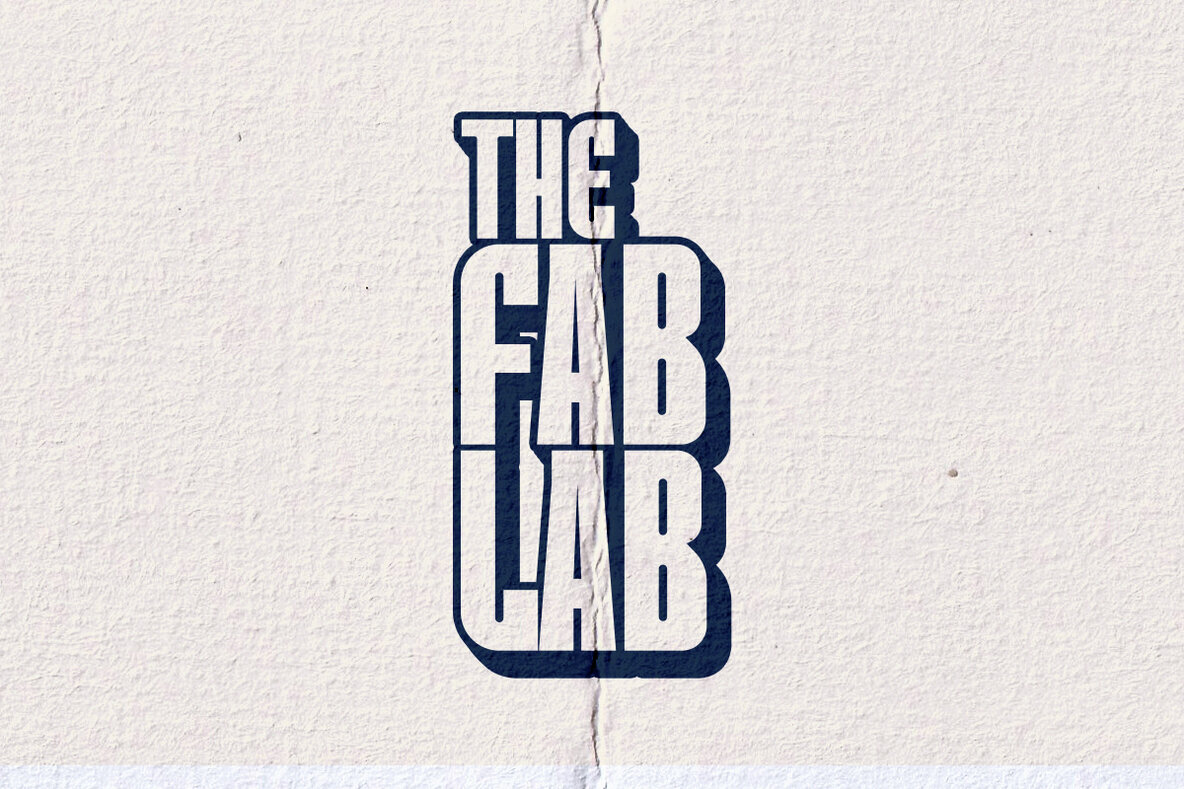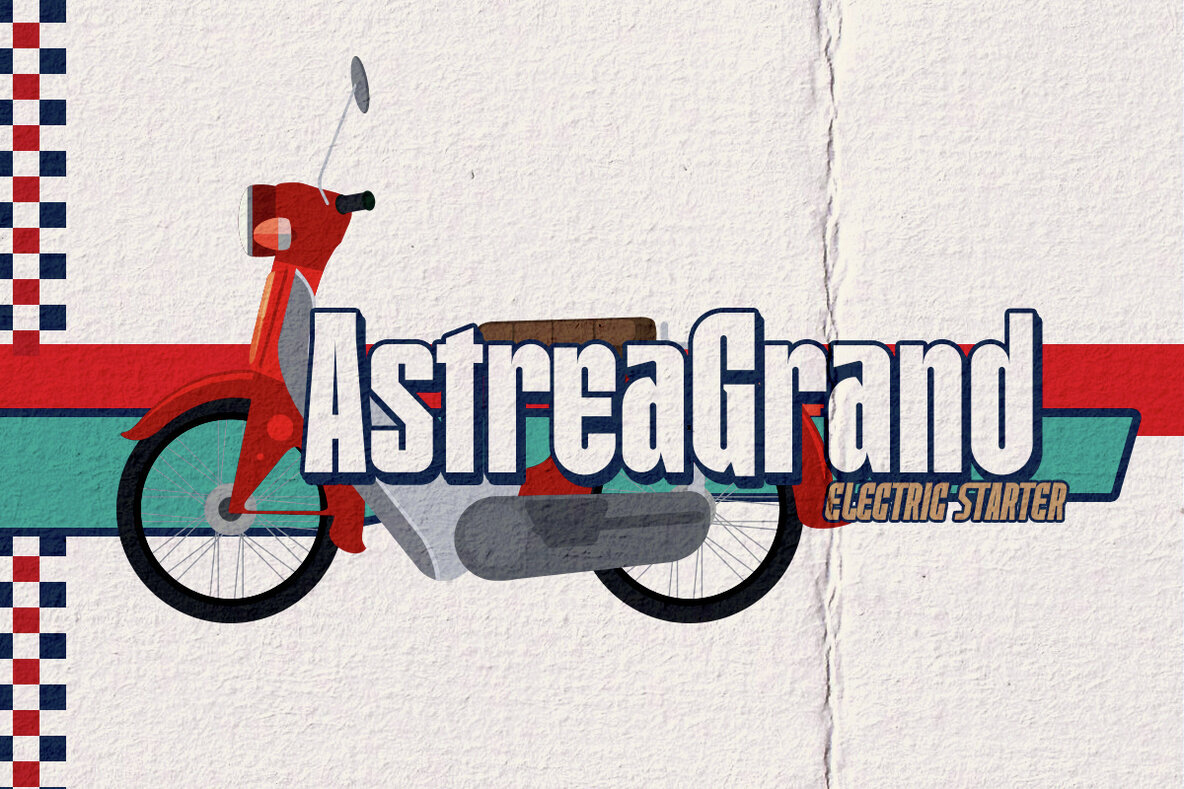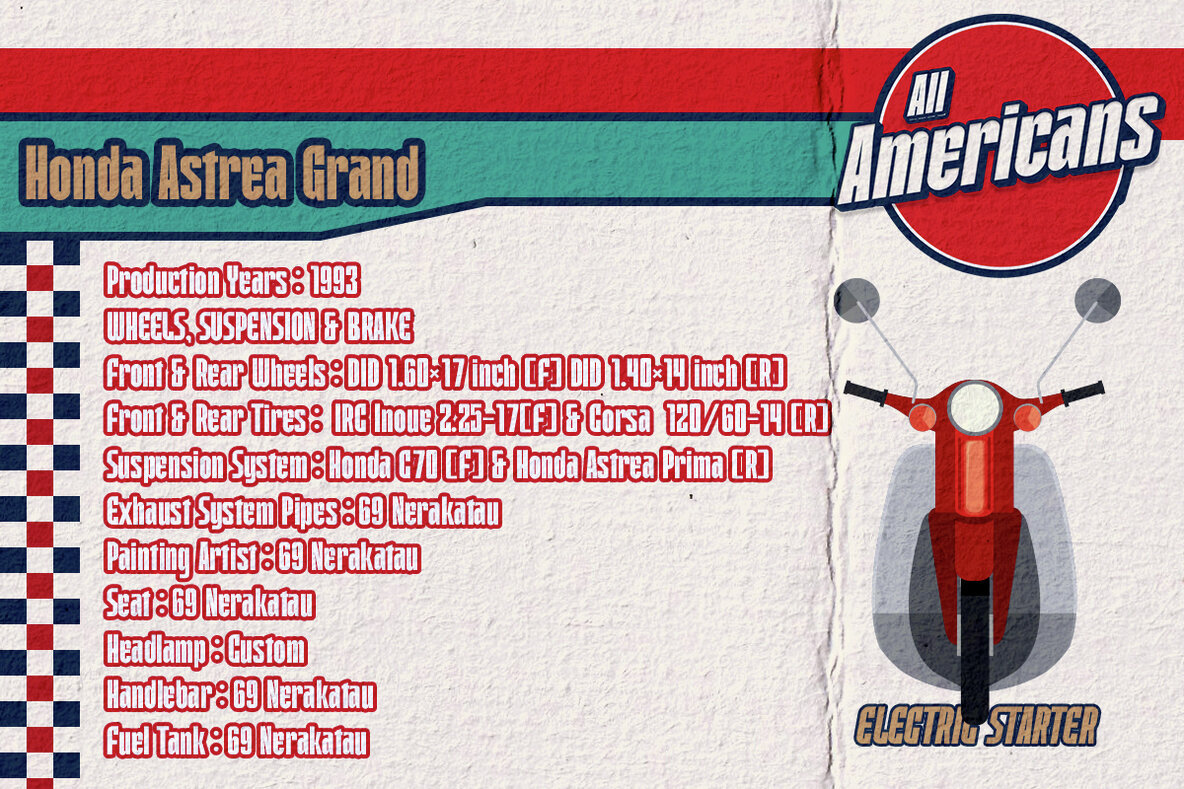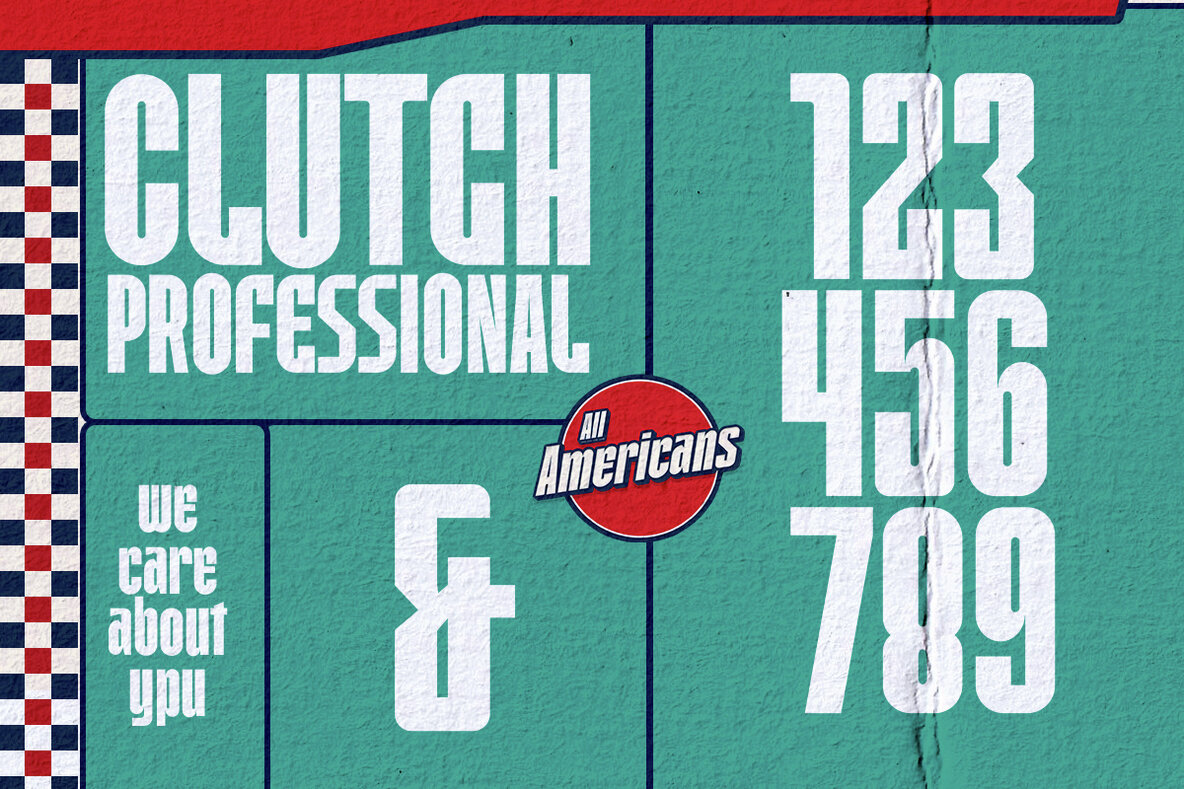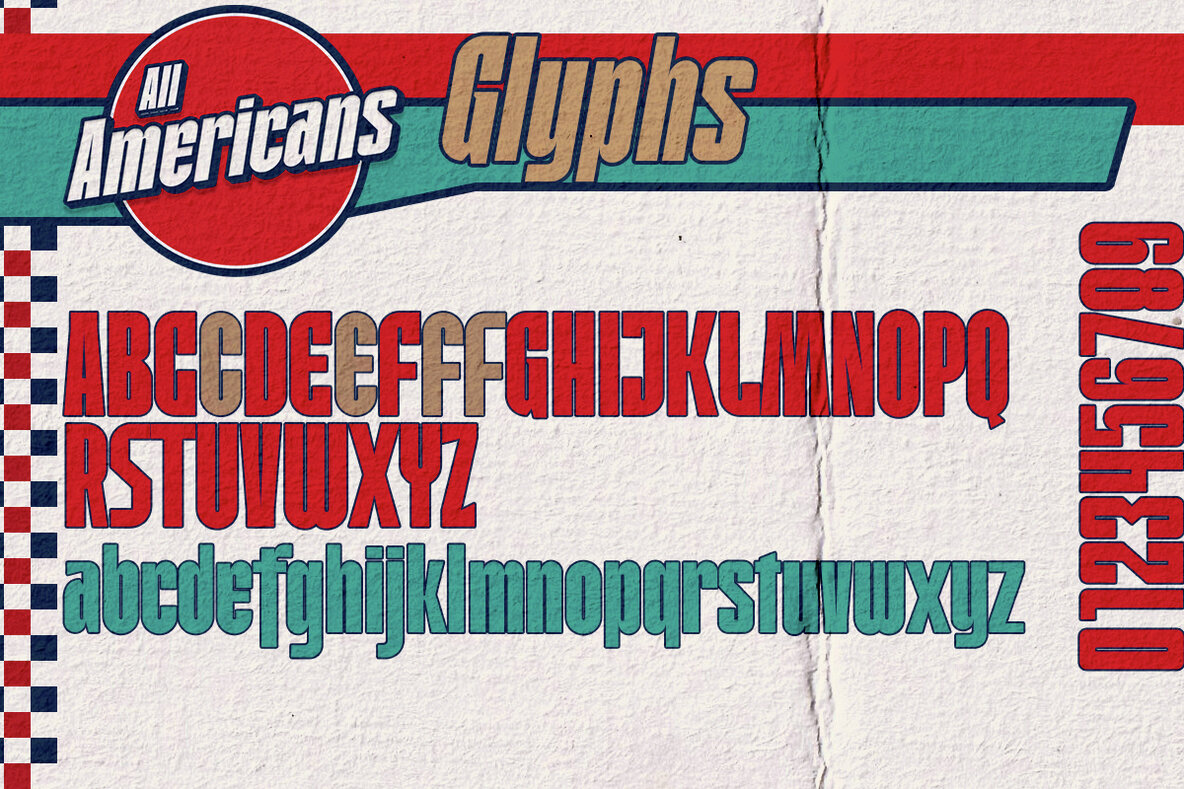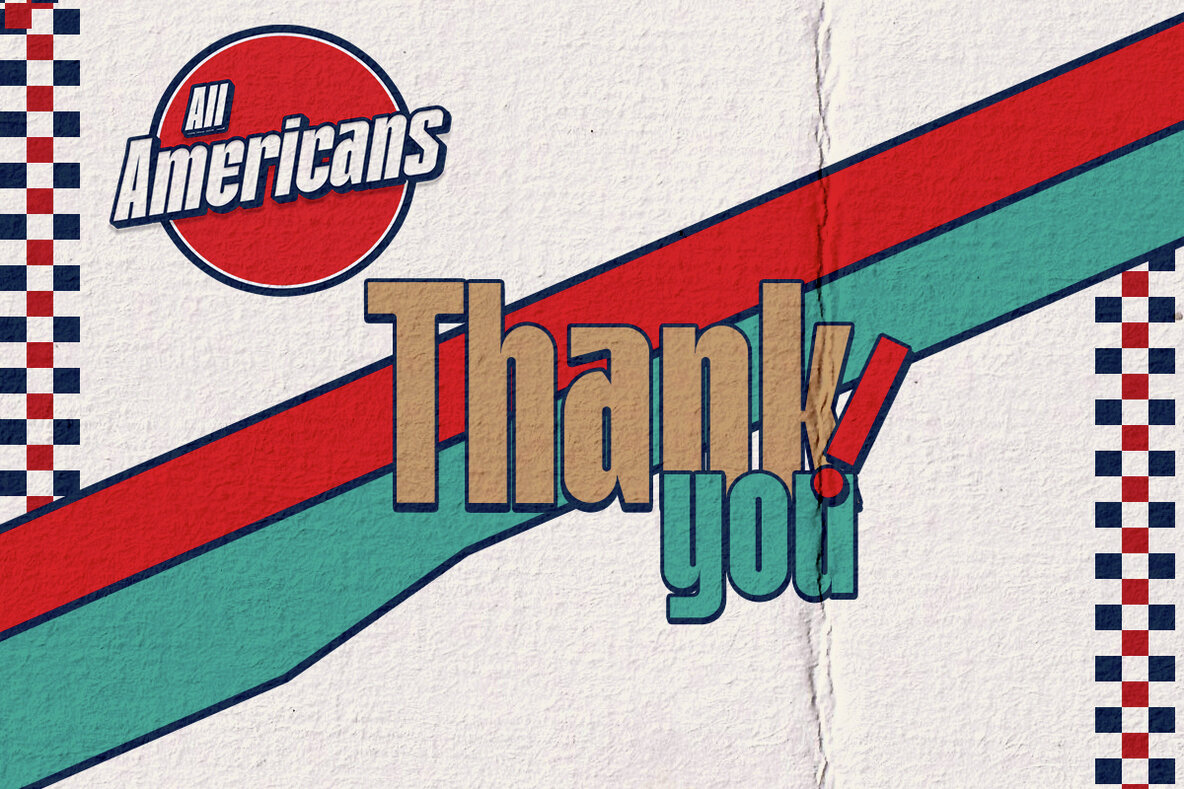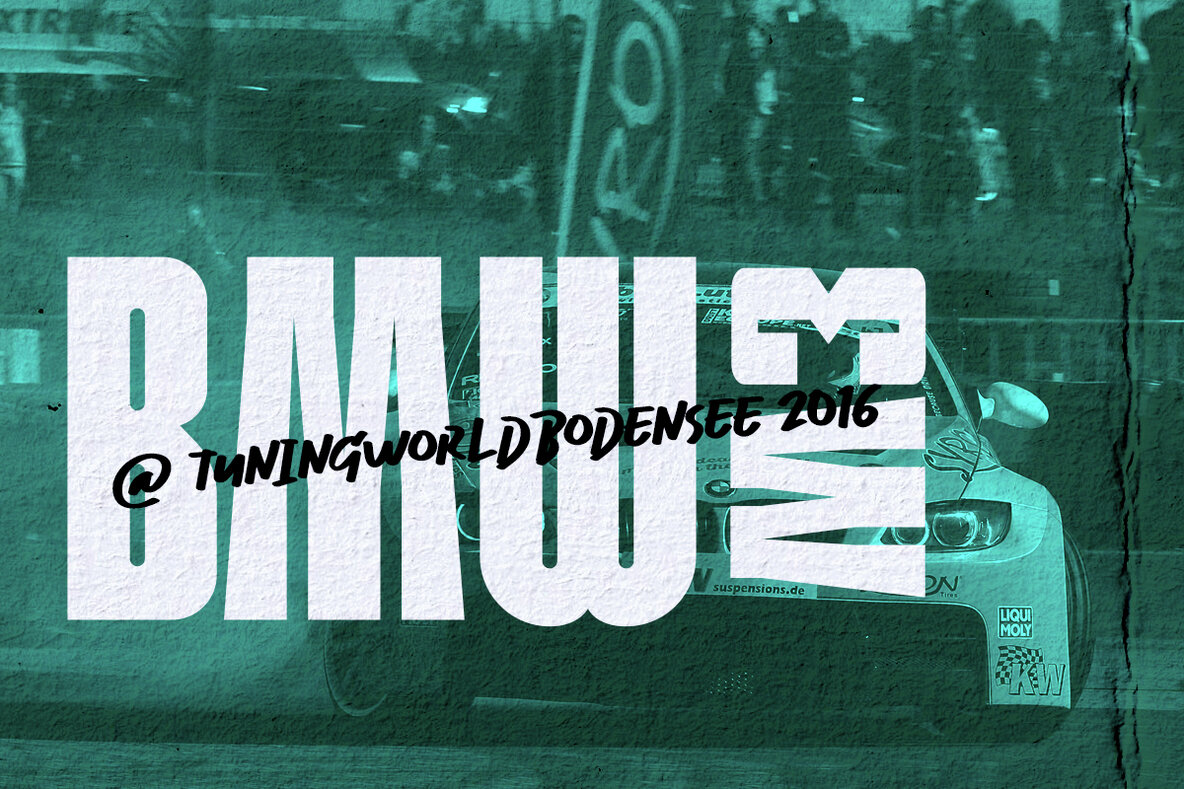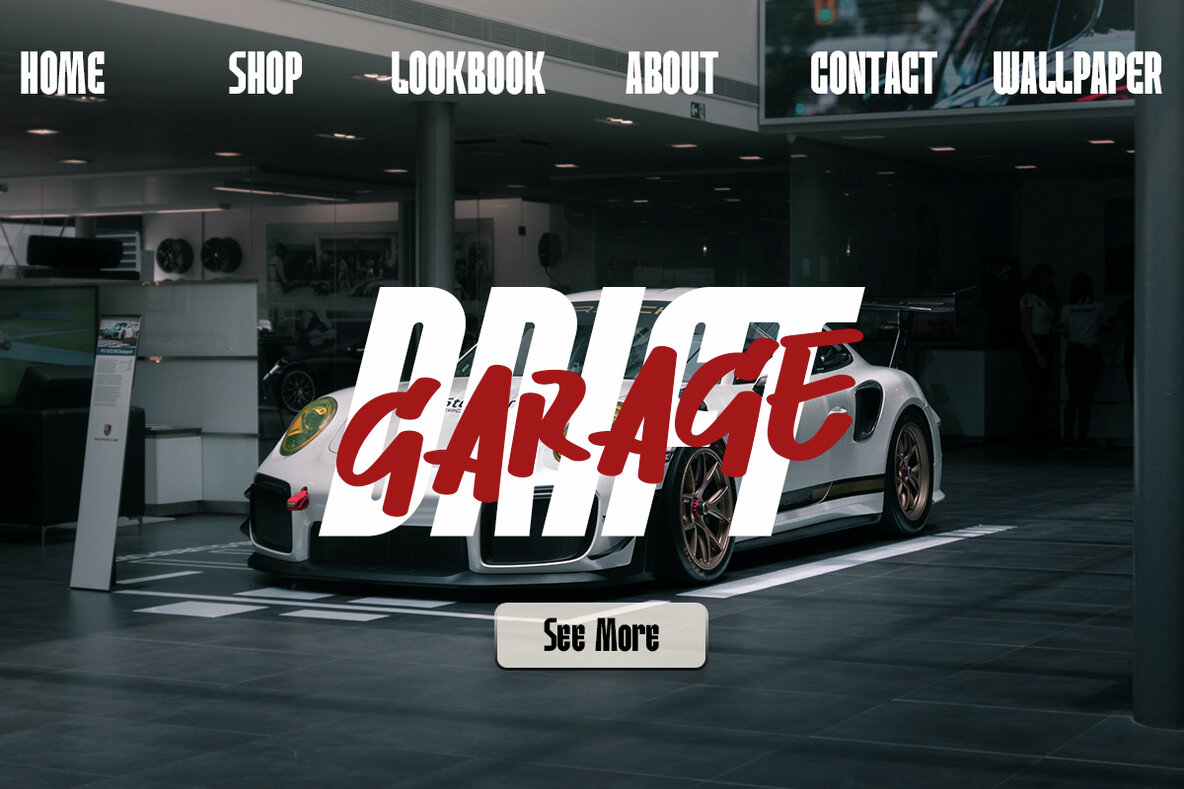
All Americans Font
Introducing All Americans, a classy, contemporary pair of script and sans fonts. With a stylish didot-style serif font and a free-flowing, expressive script companion, All Americans offers beautiful typographic harmony for a diversity of design projects, including logos & branding, wedding designs, social media posts, advertisements & product designs.